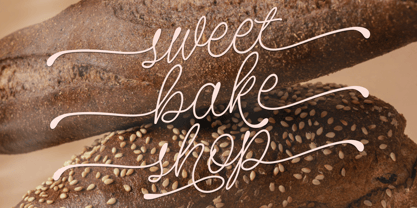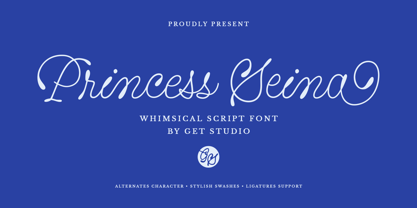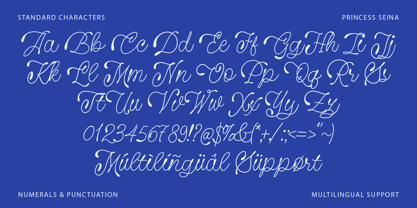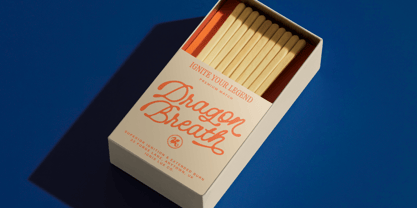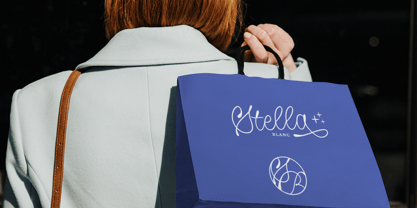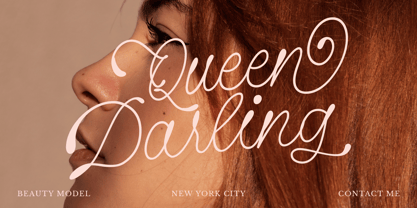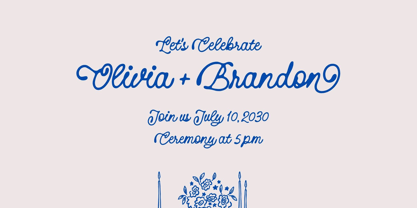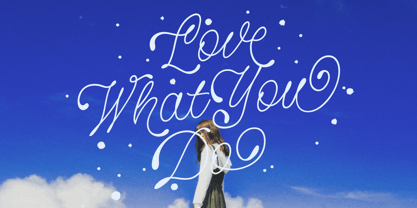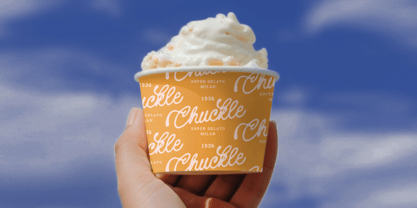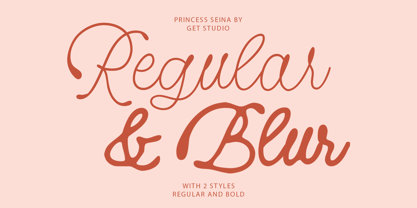
Princess Seina
by Get Studio
The Princess Seina Font Family was designed by Hermansyah and published by Get Studio. Princess Seina contains 2 styles and family package options. More about this family
Princess Seina is a whimsical monoline script font that captures elegance, charm, and softness in every stroke. Its graceful, flowing letterforms bring a fairytale-like touch to your creative projects—perfect for wedding invitations, feminine branding, romantic stationery, and more.
Designed to feel both playful and refined, Princess Seina turns every word into a magical visual story.
Designers: Hermansyah
Foundry: Get Studio